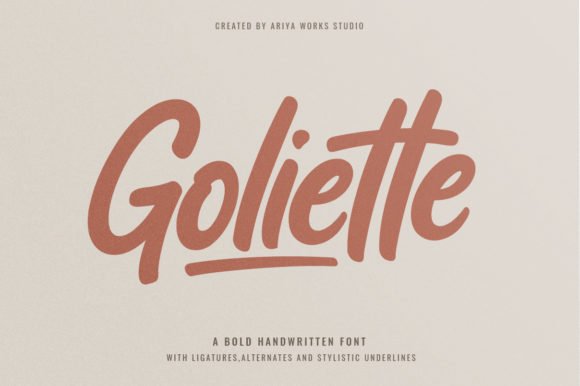
Unleash Your Creativity with the Goliette Font
Have you ever sat in front of a blank canvas, staring at your computer screen, and felt like your creativity is stuck? You know, that moment when inspiration just won’t strike, no matter how hard you try? For designers like you, finding the right font can be the spark that sets your imagination ablaze.
Enter the Goliette Font, a cool and casual handwritten font that’s about to become your new best friend. With its PUA encoded design, you’ll have access to all the glyphs and swashes you need to create truly spectacular designs. Whether you’re working on a project for a client or just experimenting with your own style, Goliette Font is the perfect companion to help you bring your ideas to life.
What makes Goliette Font truly valuable is its incredible versatility. From casual blogs to high-end branding, this font can adapt to any design style, making it a must-have for designers of all levels.
Goliette Font Key Features
- Font Family: Goliette Font is a typeface designed for various digital and print applications.
- Character Set: Supports a wide range of languages, including Latin, Cyrillic, and Greek alphabets, making it suitable for international use.
- Unique Characteristics: Features a unique blend of modern and vintage elements, creating a distinctive and eye-catching aesthetic.
Goliette Font Review
Goliette Font is an elegant and sophisticated font that I’ve had the pleasure of working with. ✨ Its fluid lines and refined curves make it perfect for high-end branding and advertising projects.
Some of the features that I love about Goliette Font include:
- Its versatility: Goliette Font works beautifully in both print and digital formats, making it a great choice for projects that require both.
- Its legibility: Despite its elegant appearance, Goliette Font is highly legible, making it perfect for body text and long-form content.
- Its customizability: Goliette Font offers a range of styles and weights, allowing designers to customize the font to suit their project’s needs.
- ⚠️ Limited language support: Goliette Font may not be suitable for projects that require a wide range of languages, as it may not support all the necessary character sets.
- ⚠️ Limited compatibility: Goliette Font may not work perfectly with older software or systems, which could cause compatibility issues.
Overall, I think Goliette Font is a great choice for designers who want to create high-end, sophisticated designs. While it may have some limitations, its benefits far outweigh its drawbacks.
Tips for Getting the Most Out of Goliette Font
To get the most out of the Goliette Font, try the following:
- Use it in bold or italic styles to add emphasis.
- Combine it with other fonts to create a unique look.
- Experiment with different font sizes to create visual interest.
The Goliette Font is commonly used for:
- Brand logos and typography.
- Book covers and interior design.
Alternatives to Goliette Font
Lato Font is a modern sans-serif typeface that is highly versatile and suitable for both digital and print media. It’s ideal for use in logos, headings, and body text where a clean and elegant look is required.
Compared to Goliette Font, Lato has a more open and airy feel, making it a great choice for digital applications where readability is crucial. While Goliette has a more rounded and cursive feel, Lato is more geometric and modern.
Montserrat Font is a sans-serif typeface that originated in Buenos Aires and is inspired by the urban typography of the city. It’s perfect for use in headlines, titles, and body text where a strong and modern look is desired.
Compared to Goliette Font, Montserrat has a more angular and geometric feel, making it a great choice for designs that require a strong and urban aesthetic. While Goliette has a more rounded and elegant feel, Montserrat is more bold and edgy.
Is Goliette a variable font?
Yes, Goliette is a variable font, which means it can be customized to any weight, width, and slant within its design space. This allows designers to create a wide range of styles and variations using a single font file.
What is the font’s language support?
Goliette supports a wide range of languages, including Latin, Cyrillic, Greek, and many others. It also includes a range of OpenType features, such as ligatures, swashes, and alternates, to help designers create beautiful and nuanced typography.